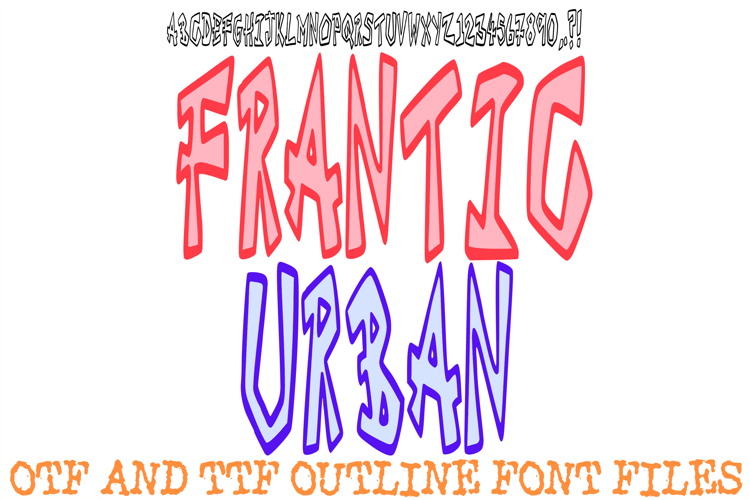
Frantic Urban Lettering Font Cartoon Graffiti ABC OTF Type
The Frantic Urban Font is an edgy, high-energy display typeface defined by its restless outlines and sharp, geometric construction. Featuring irregular, hand-drawn letterforms that mimic the vibrating energy of city life, this font is a go-to for designers working on streetwear branding, alternative music posters, underground zine layouts, and modern social media graphics.
The shaky, "nervous" lines create a sense of constant motion and raw urgency, making every word feel like it was sketched in a moment of frantic inspiration. Whether you are building an identity for an indie skate brand or designing bold apparel prints, this font provides a handcrafted, rebellious aesthetic that cuts through the noise of traditional typography.
Kinetic Energy: The vibrating, shaky outlines give your text a unique "pulse" that feels alive and high-impact.
Urban Street Aesthetic: The raw, unpolished shapes perfectly capture the grit and spontaneity of modern street art and DIY culture.
Hand-Drawn Authenticity: Each character maintains a tactile, sketched quality that adds a layer of human personality to digital projects.
High-Contrast Impact: The bold, black-and-white blocky structures ensure your headers remain legible while maintaining a distorted, experimental vibe.